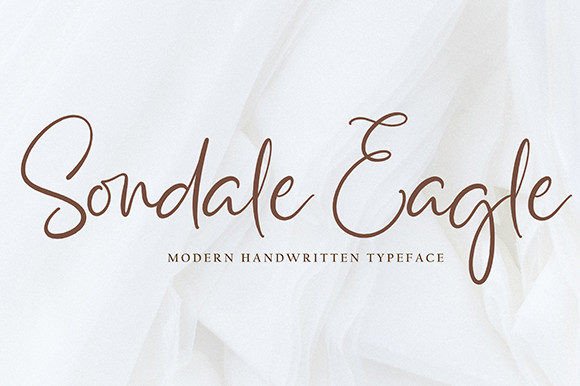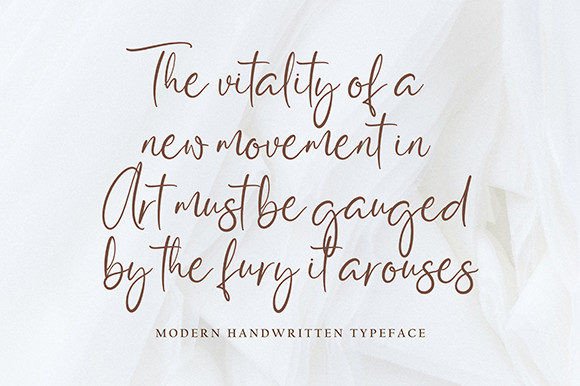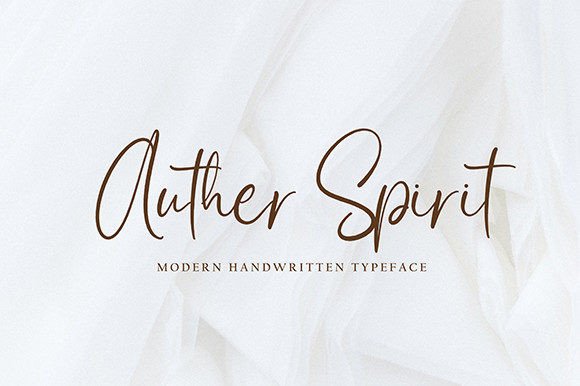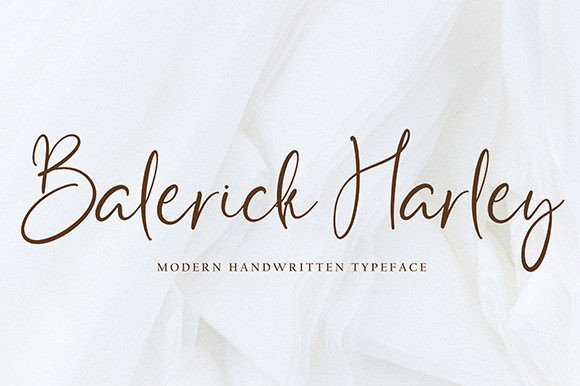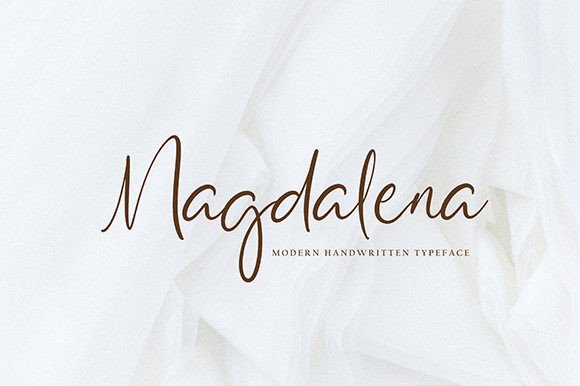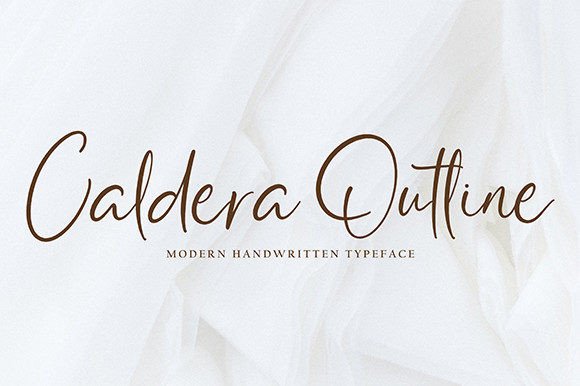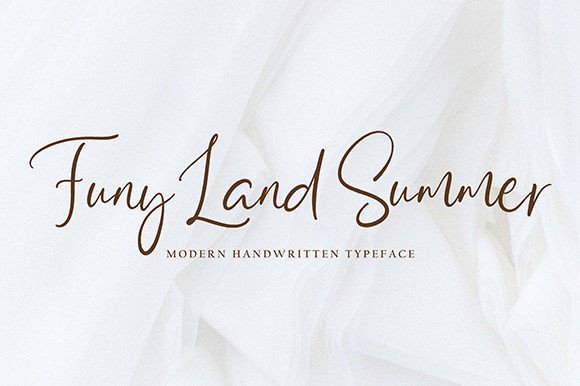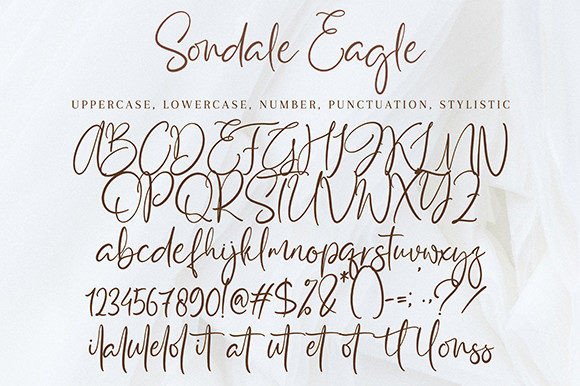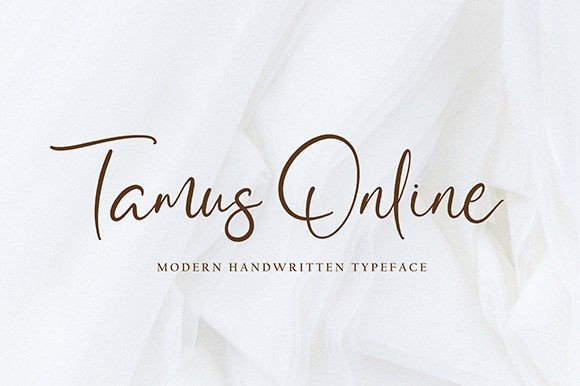
Sondale Eagle Font
About Sondale Eagle Font
Sondale Eagle is an elegant and stylish script font that embodies sophistication and charm, making it an ideal choice for a wide range of creative projects. Whether you’re working on quotes, logos, blog headers, posters, branding materials, letters, invitations, stationery, and more, Sondale Eagle is a font that can add a touch of timeless beauty to your designs.
This font’s elegance and stylish script design bring a sense of refinement to your work. Its graceful letterforms convey a feeling of class and sophistication, making it perfect for projects where you want to create a lasting impression of style and sophistication.
Sondale Eagle’s versatility shines through in its ability to adapt seamlessly to different design themes and concepts, making it a valuable asset for designers looking for a font that can infuse their work with an air of elegance and grace.
In summary, Sondale Eagle is more than just a font; it’s a creative asset that brings a sense of style and sophistication to your design endeavors. Its elegant script, combined with its adaptability, makes it a valuable addition to your font collection. Embrace Sondale Eagle and watch as it elevates your creative projects with its timeless and captivating design.